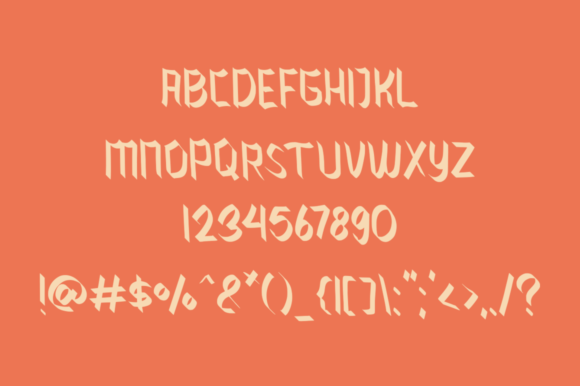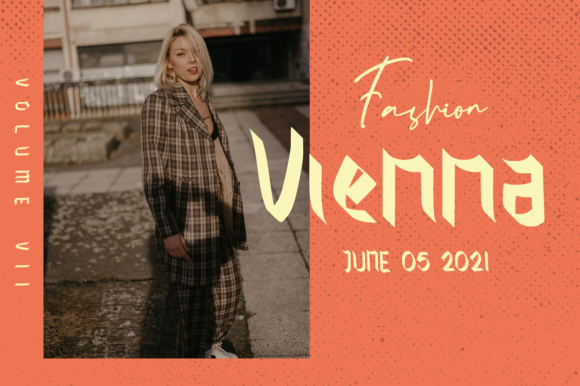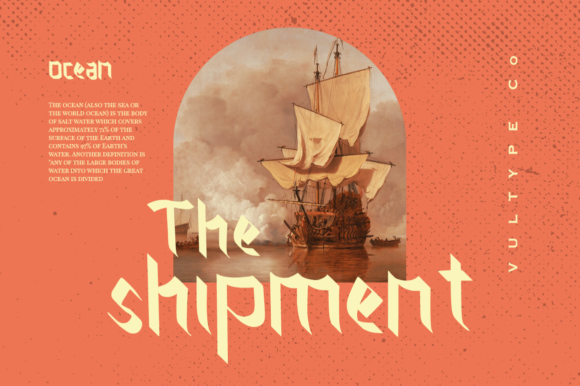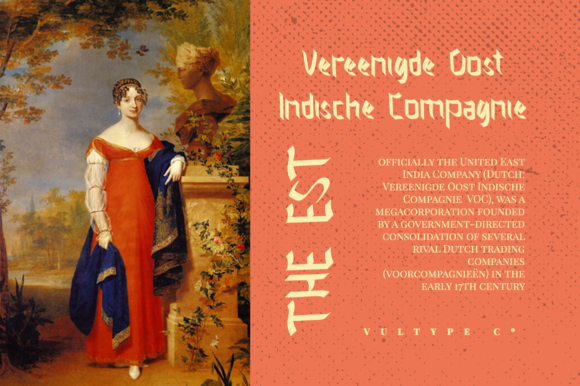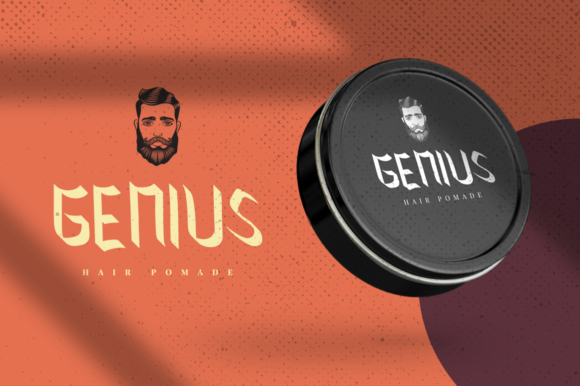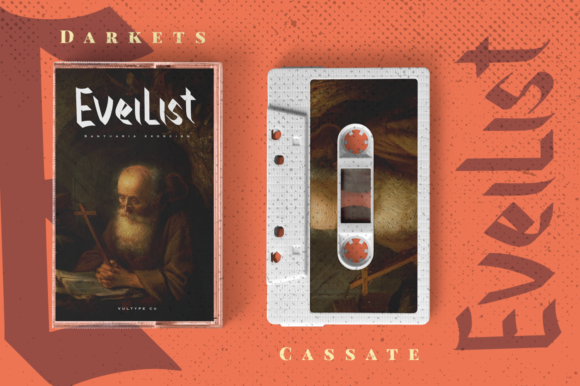
Introduction to Rubrika Font Font
Fonts play a crucial role in design, and the Rubrika Font font is a typeface that brings both character and versatility to any project. Whether you’re working on a branding project, a website, or a print design, the Rubrika Font font offers a unique style that can elevate your work.
| 👤 Author | vultype |
Rubrika is a cool, modern and whimsical display font.
Key Features of Rubrika Font Font
Why Choose Rubrika Font Font?
The Rubrika Font font is more than just a typeface – it’s a design tool that helps you communicate your message with style and clarity. Its unique character set and versatile design make it suitable for a wide range of applications, from elegant invitations to bold headlines.
With its carefully crafted letterforms and balanced proportions, the Rubrika Font font ensures readability and visual appeal across all mediums.
What makes Rubrika Font font special?
The Rubrika Font font stands out with its unique design, exceptional readability, and versatility across various design applications.